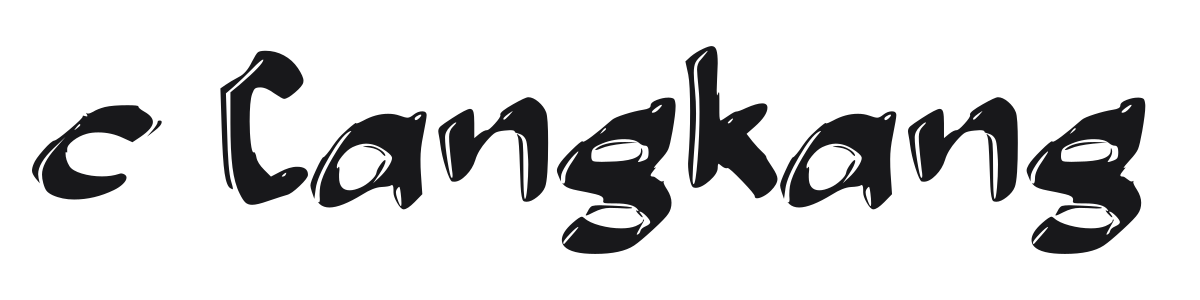
c Cangkang
c CangkangLicense is a heavy brush script with deep roots in East Asian calligraphic tradition, rendered with thick, gestural strokes and a bold forward lean. The rough ink-textured outlines and subtle drop-shadow give it a physical, almost carved presence at large sizes. It carries real energy without tipping into illegibility.